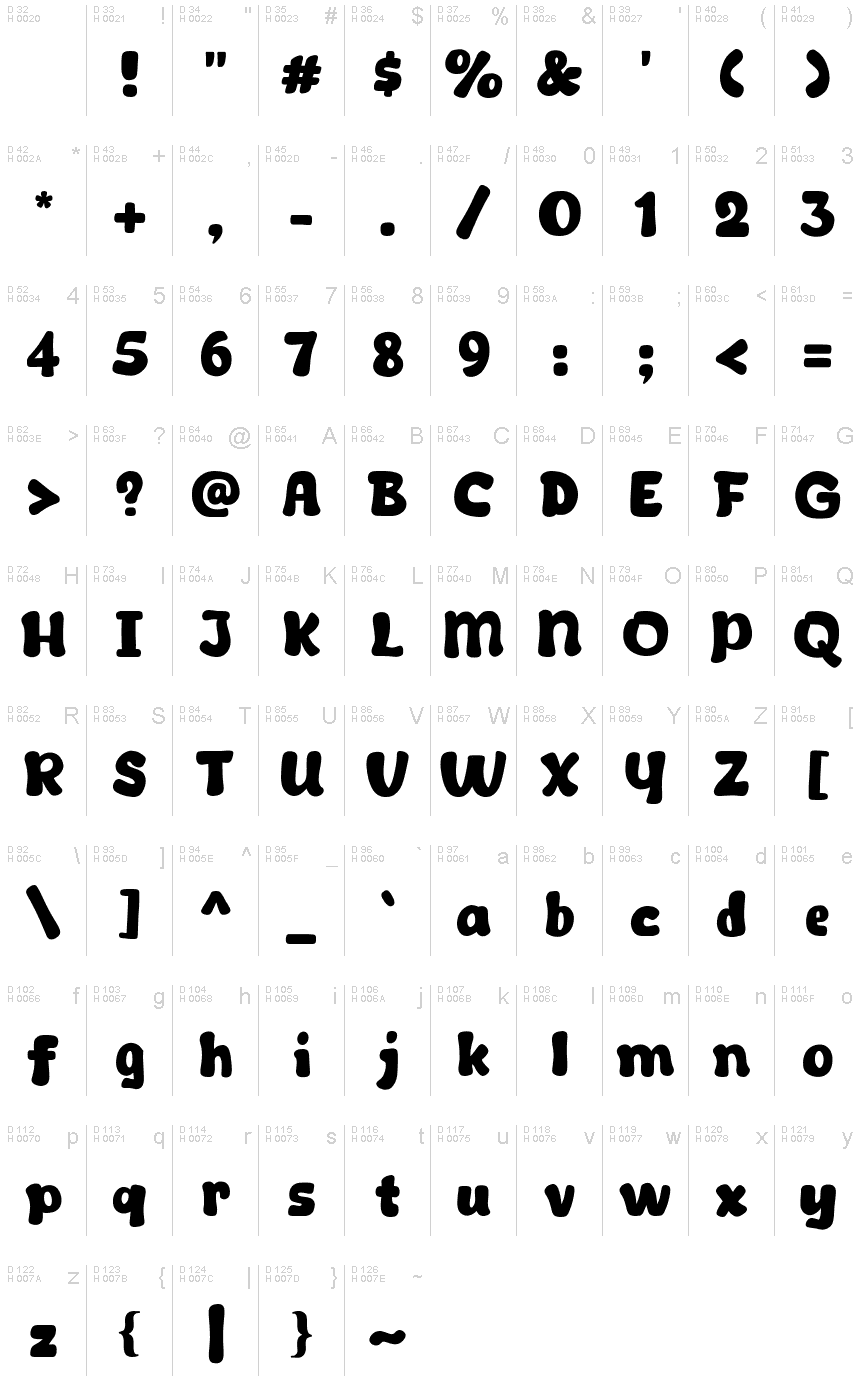
Talkco
Talkco, designed by Khurasan, is a modern and cute extra-bold display font that adds a touch of playfulness to any design. Its cartoon style makes it perfect for a variety of projects.
Use Talkco to create eye-catching posters that grab attention and convey your message with impact. With its bold and energetic appearance, this font is also ideal for creating memorable logos that leave a lasting impression. Additionally, Talkco works well in magazines, adding personality to headlines and captions. It can bring life to book covers, making them visually appealing and inviting. Banners created with Talkco will instantly draw attention at events or on websites.
In short, Talkco is the perfect choice when you want your designs to stand out!